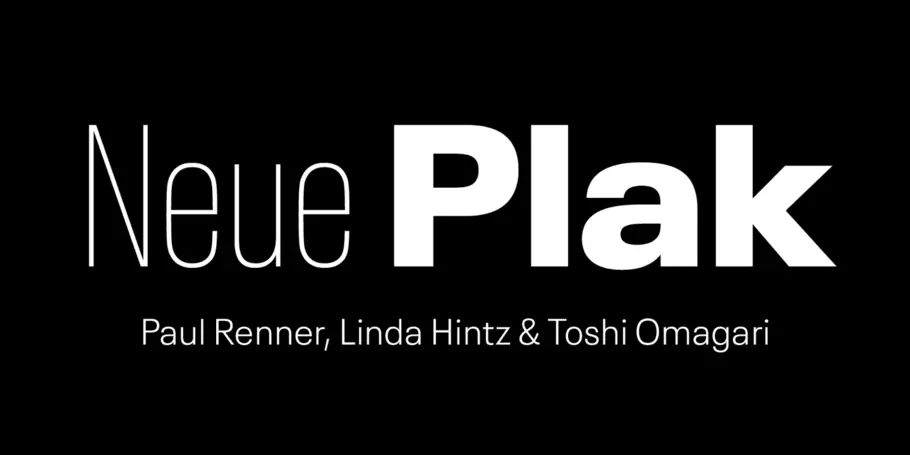
Neue Plak Text is a modern revival of the classic Plak typeface, originally designed by Paul Renner in 1928. It features a clean, geometric sans-serif design that is both functional and versatile, making it suitable for a wide range of applications from editorial to branding. The typeface was released in 2018 as an updated version, expanding on the original's character set and styles.